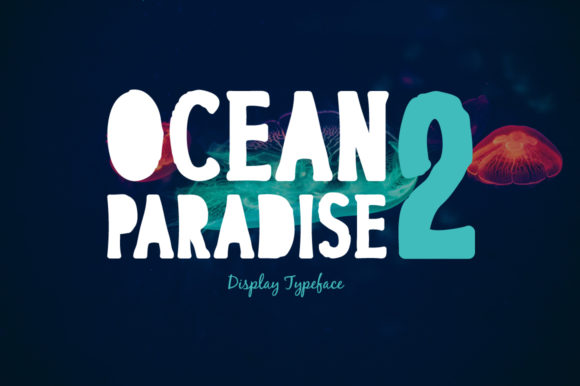
Ocean Paradise 2 Font: A Striking Display Font for Your Creative Projects
Are you looking for a font that can add a touch of elegance and sophistication to your creative projects? Look no further than the Ocean Paradise 2 font. This striking display font is perfect for a wide range of applications, from stationery and logos to t-shirts, papers, and print designs. In this article, we’ll take a closer look at the Ocean Paradise 2 font and explore its features, benefits, and uses.
Key Features of Ocean Paradise 2 Font
- Unique and Eye-catching Design: The Ocean Paradise 2 font features a unique and eye-catching design that is sure to grab attention.
- Highly Versatile: This font is highly versatile and can be used for a wide range of applications, from print designs to digital projects.
- Easily Readable: Despite its decorative nature, the Ocean Paradise 2 font is easily readable, making it perfect for use in titles, headings, and other display text.
Benefits of Using Ocean Paradise 2 Font
The Ocean Paradise 2 font offers a range of benefits for designers, artists, and crafters. Some of the key benefits include:
- Adds Visual Interest: The Ocean Paradise 2 font can add visual interest to your projects, helping to grab attention and engage your audience.
- Enhances Creativity: This font can help to enhance your creativity, providing a unique and inspiring way to express yourself.
- Saves Time: With the Ocean Paradise 2 font, you can save time and effort, as it’s easy to use and doesn’t require a lot of manual adjustments.
- Professional-looking Results: This font can help you achieve professional-looking results, even if you’re not a seasoned designer.
Uses of Ocean Paradise 2 Font
The Ocean Paradise 2 font is perfect for a wide range of applications, including:
- Stationery: Use the Ocean Paradise 2 font to create beautiful stationery, including letterheads, envelopes, and greeting cards.
- Logos: This font is perfect for creating unique and memorable logos for your business or brand.
- T-shirts and Apparel: The Ocean Paradise 2 font is great for use on t-shirts, hoodies, and other apparel.
- Papers and Print Designs: Use this font to add a touch of elegance to your papers, brochures, and other print designs.
- Website Headers: The Ocean Paradise 2 font is perfect for use in website headers, adding a touch of sophistication to your website.
- Photo Frames and Flyers: This font is great for use in photo frames, flyers, and other visual materials.
- Music Covers and Posters: The Ocean Paradise 2 font is perfect for use on music covers, posters, and other promotional materials.
- Image Sliders and More: This font can be used in a wide range of other applications, including image sliders, social media graphics, and more.
Tips and Tricks for Using Ocean Paradise 2 Font
Here are a few tips and tricks for getting the most out of the Ocean Paradise 2 font:
- Experiment with Different Sizes and Colors: Don’t be afraid to experiment with different sizes and colors to find the perfect combination for your project.
- Pair with Other Fonts: The Ocean Paradise 2 font pairs well with other fonts, so try combining it with a simpler font for a contrasting look.
- Use on High-contrast Backgrounds: This font looks great on high-contrast backgrounds, so try using it on a background with a lot of texture or pattern.
- Pay Attention to Legibility: While the Ocean Paradise 2 font is easily readable, make sure to pay attention to legibility, especially when using it in smaller sizes.
| Font Style | Display Font |
| Font Weight | Bold |
| Font Size | Variable |
| Characters | Uppercase, Lowercase, Numbers, and Punctuation |
In conclusion, the Ocean Paradise 2 font is a striking display font that is perfect for a wide range of creative projects. With its unique and eye-catching design, highly versatile nature, and easily readable characters, this font is sure to add a touch of elegance and sophistication to your work. Whether you’re a designer, artist, or crafter, the Ocean Paradise 2 font is a great choice for any project that requires a professional-looking font.